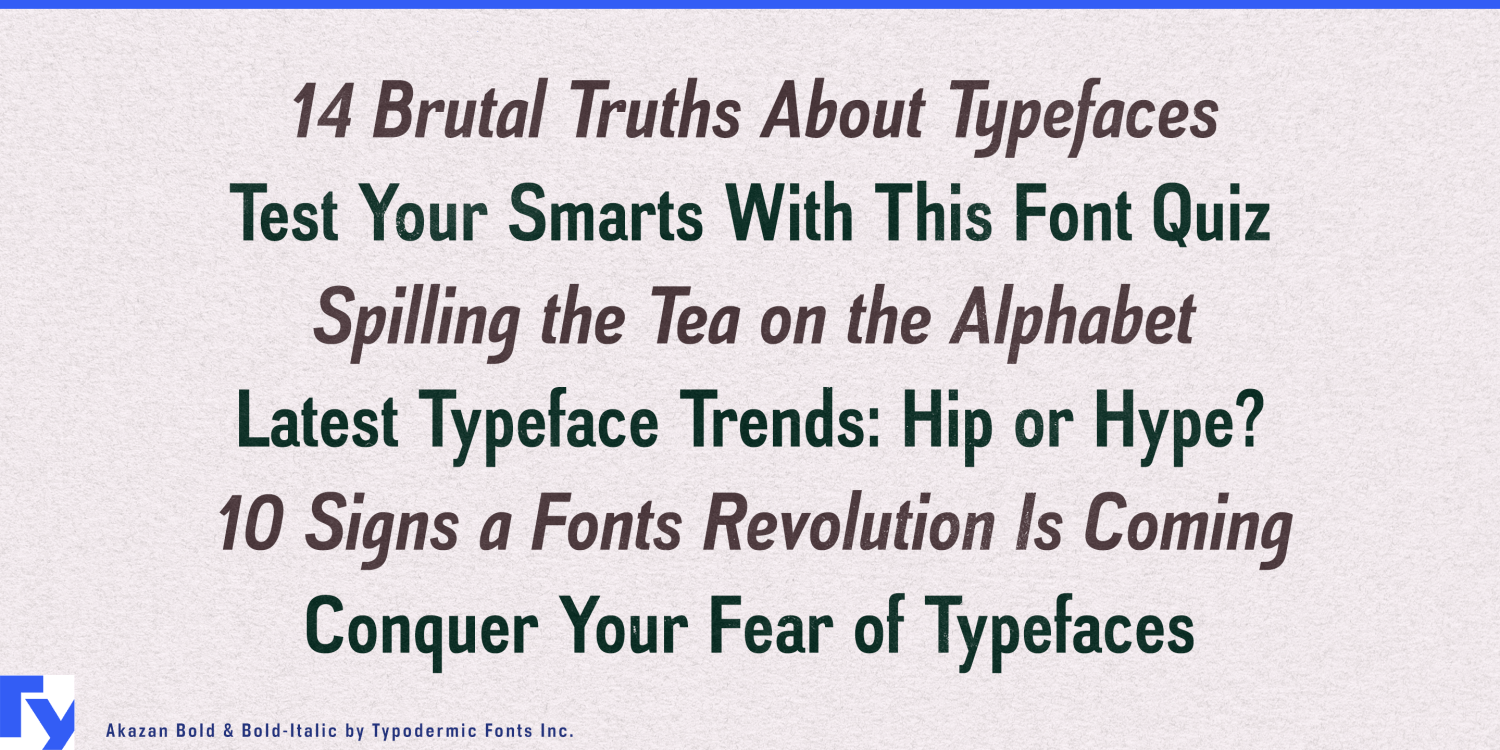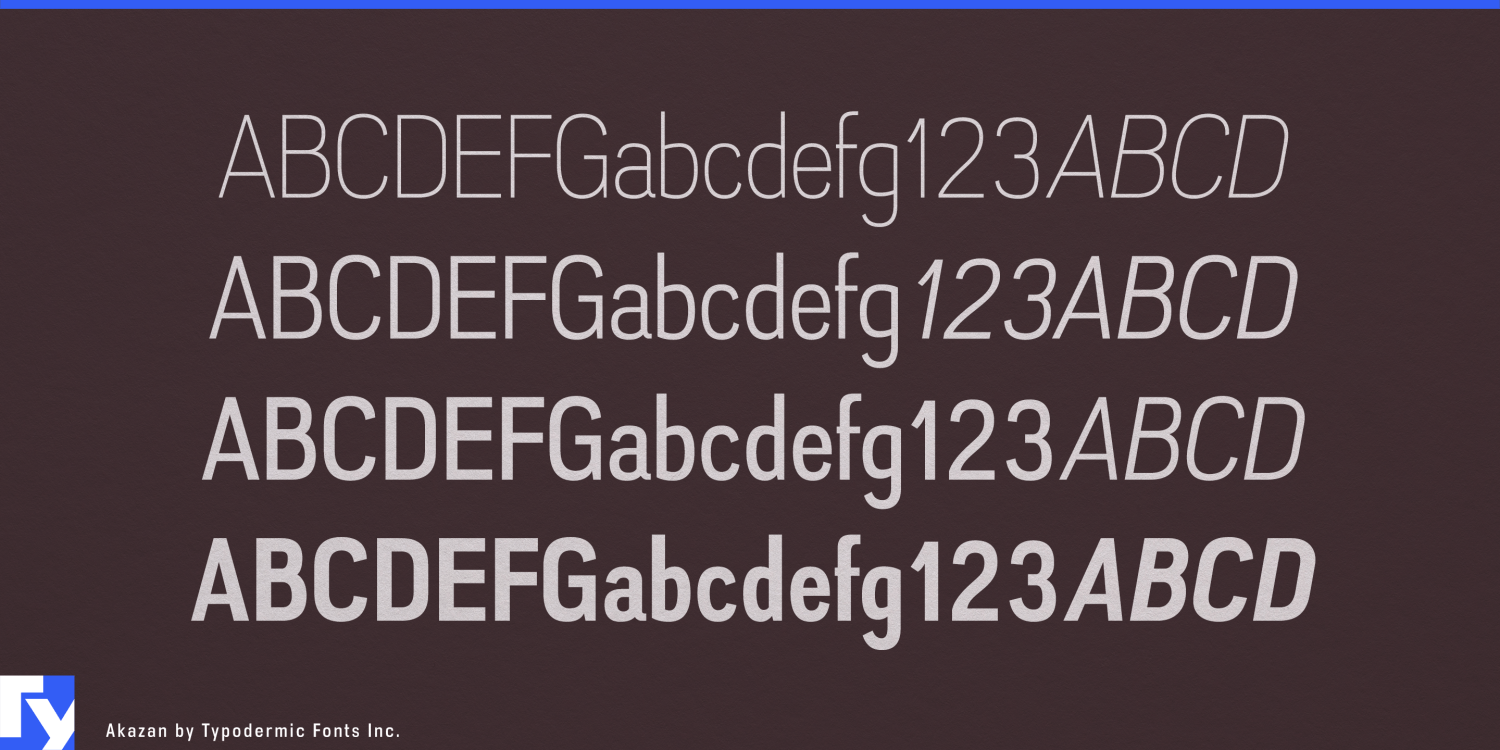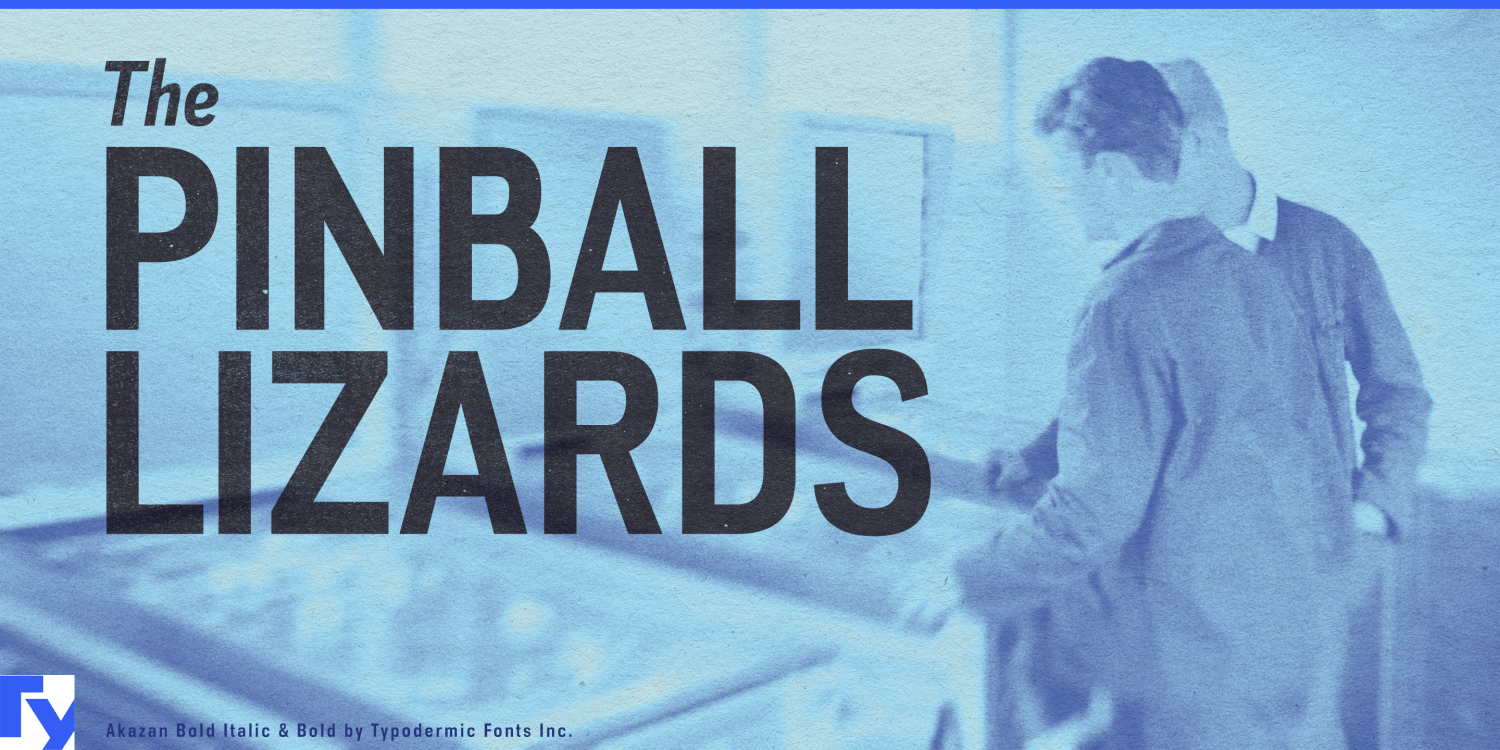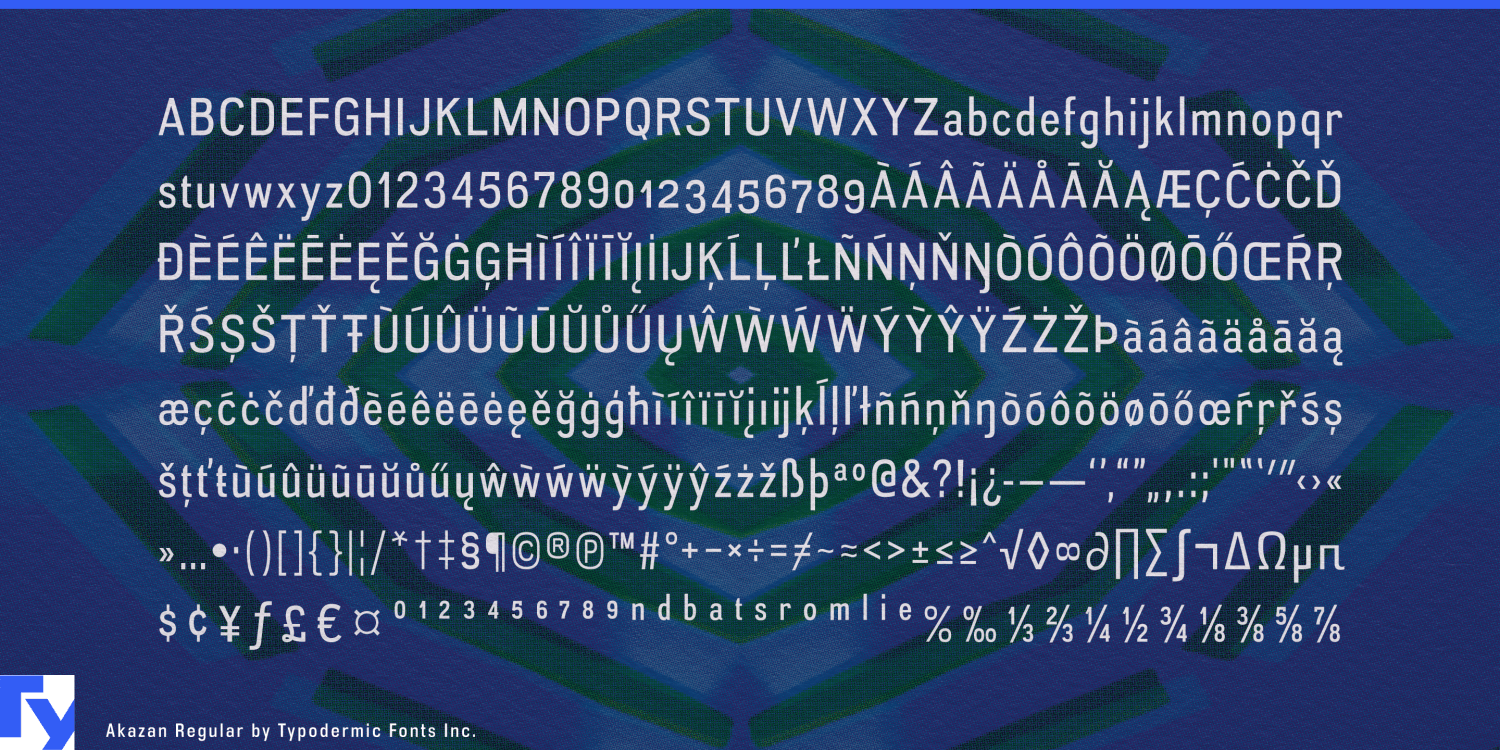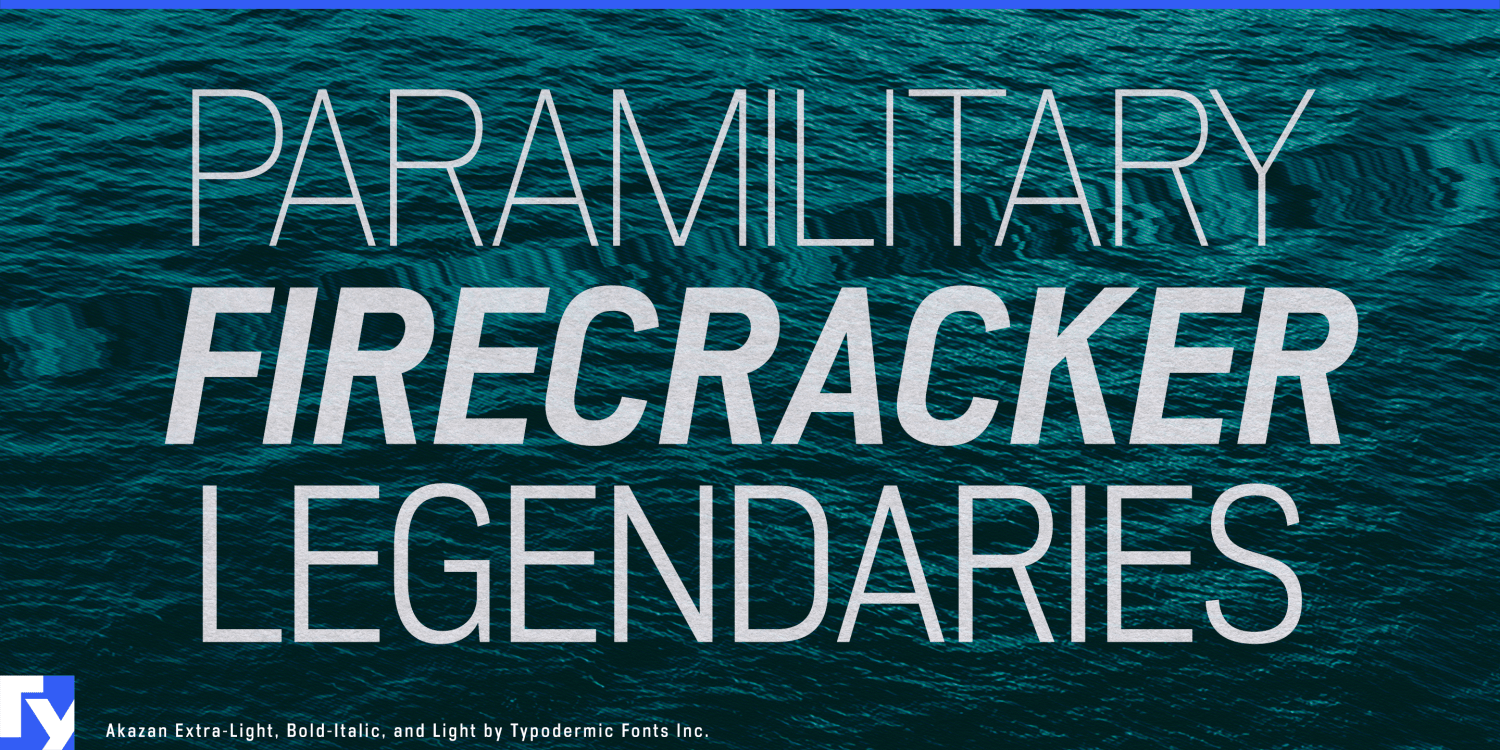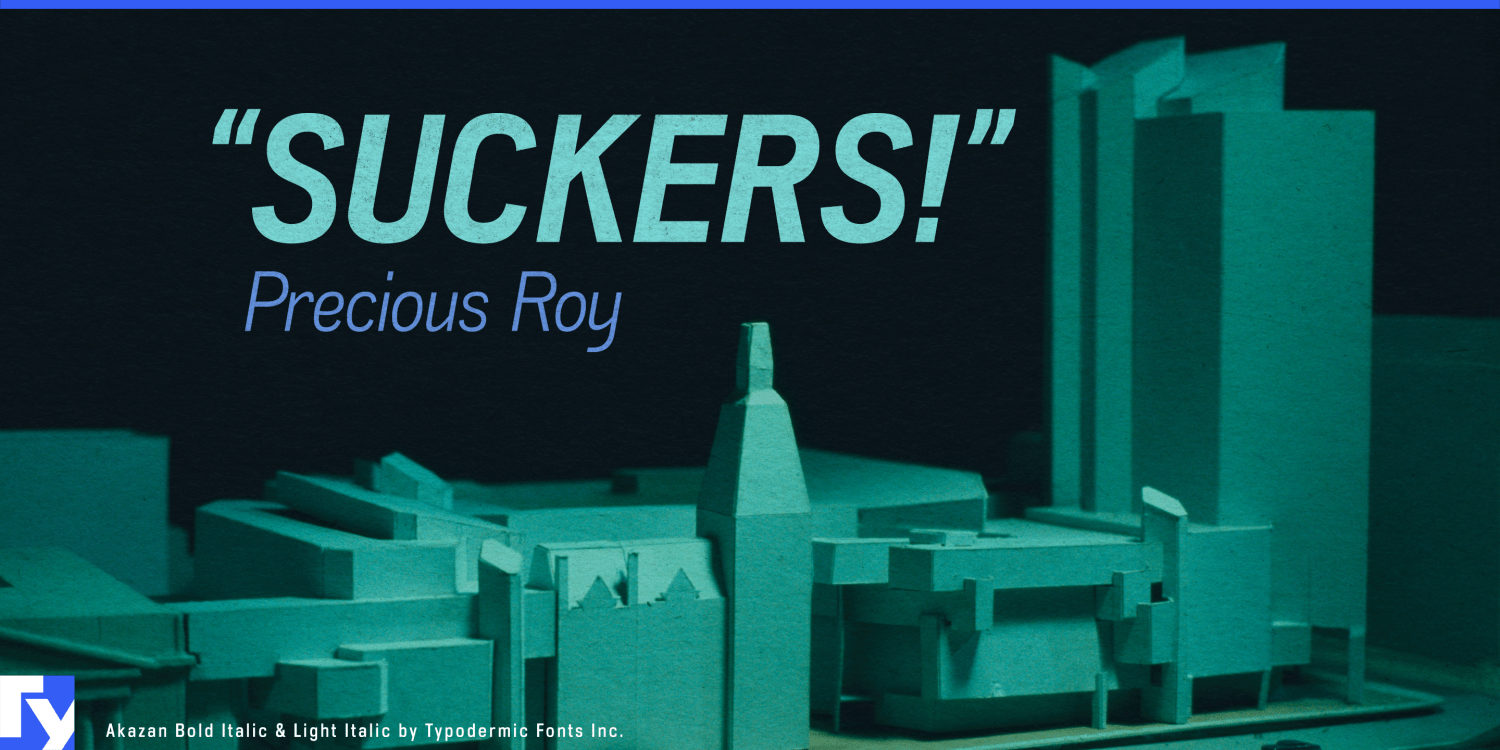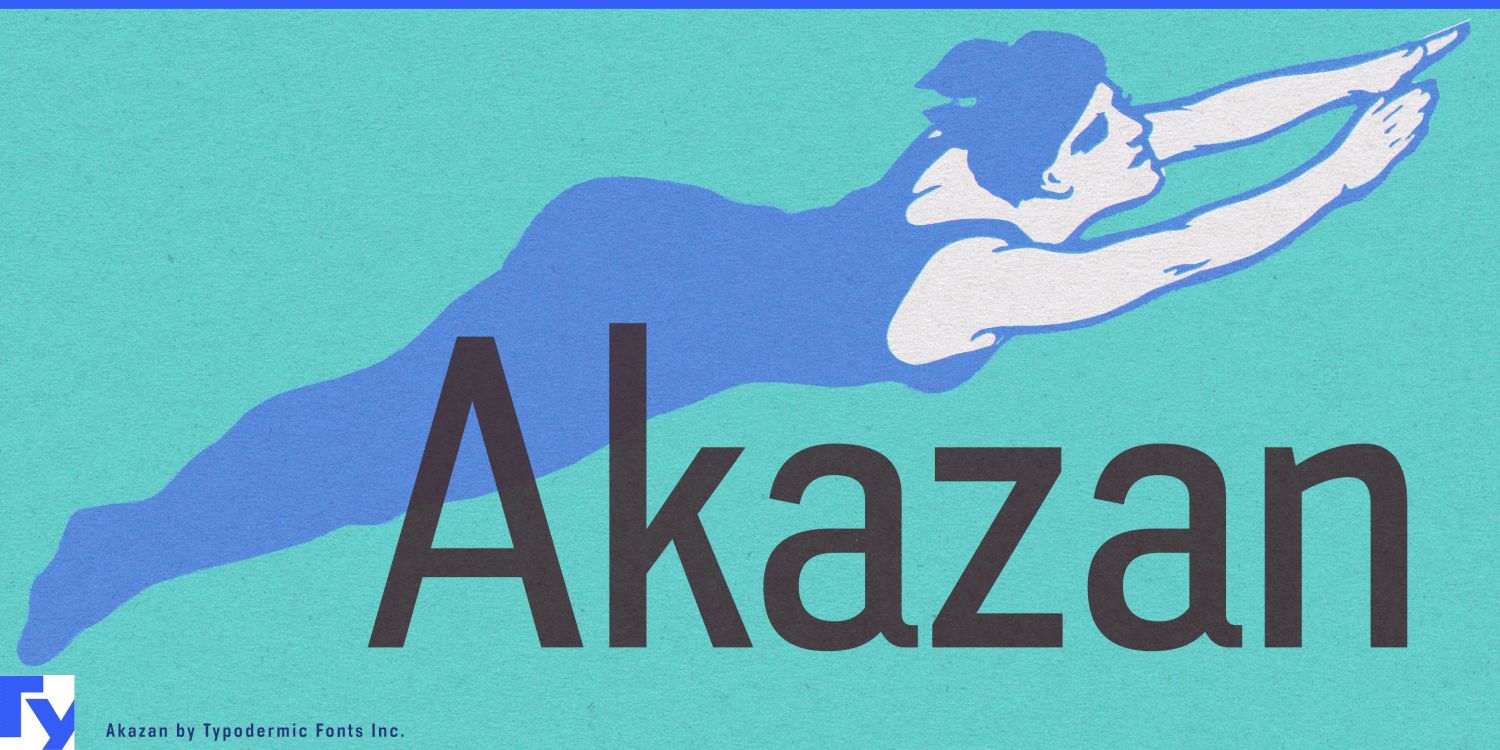
About Akazan
Discover Akazan, a compact sans-serif typeface that transcends conventional design boundaries. This distinctive font family fuses elements from early twentieth-century grotesque, mid-century technical, and 1990s reductionist styles, creating a typographic…